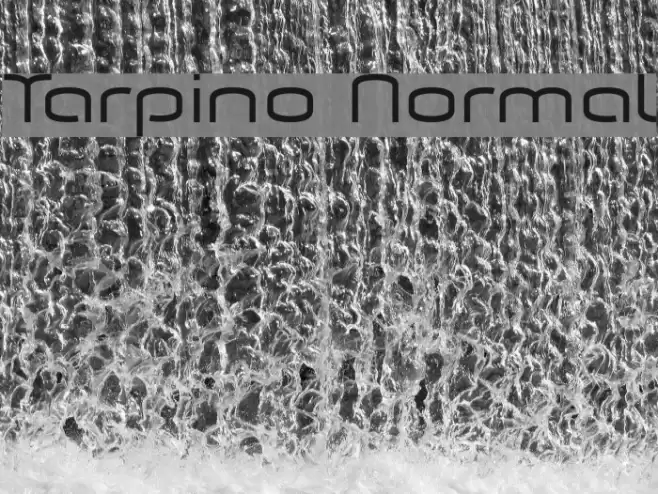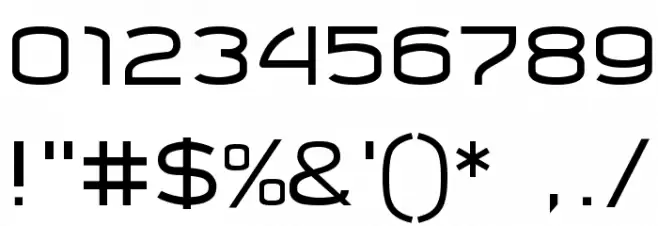
Tarpino Normal Font
Tarpino Normal Description
This font features a modern, geometric design with clean lines and a futuristic aesthetic. The characters are evenly spaced, with a consistent stroke width that gives a uniform appearance. The uppercase letters have a distinct, angular style, while the lowercase letters maintain a rounded, softer look. The numerals are clear and legible, matching the overall sleek design. Special characters are well-integrated, maintaining the font's cohesive style. This font is ideal for projects that require a contemporary and professional look.
A modern, geometric font with clean lines and a futuristic aesthetic from Uncategorized fonts.
- Proposed Projects: Ideal for tech branding, digital interfaces, modern advertising, and futuristic design projects.
- Use Case: Headlines, Logos, Digital interfaces